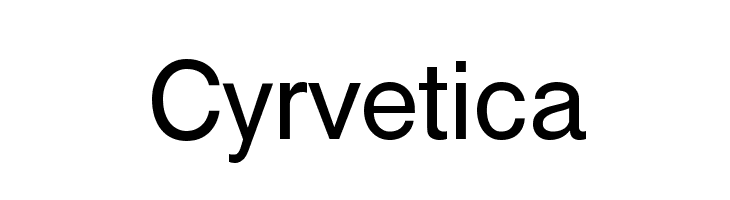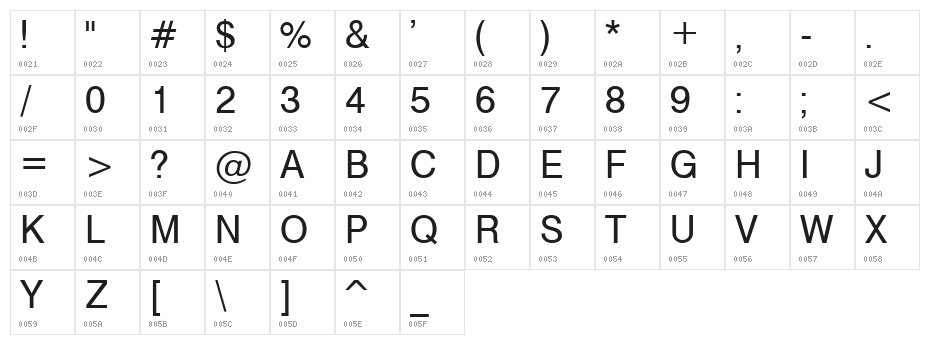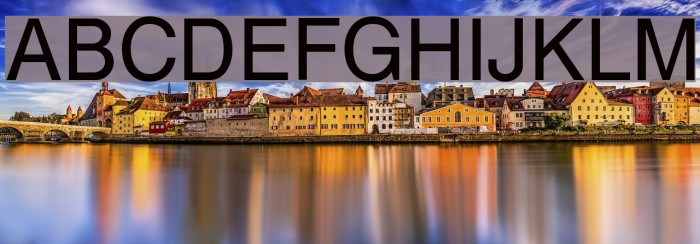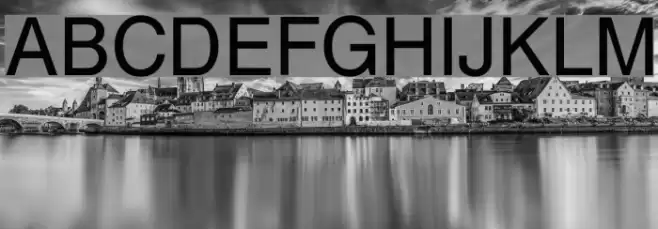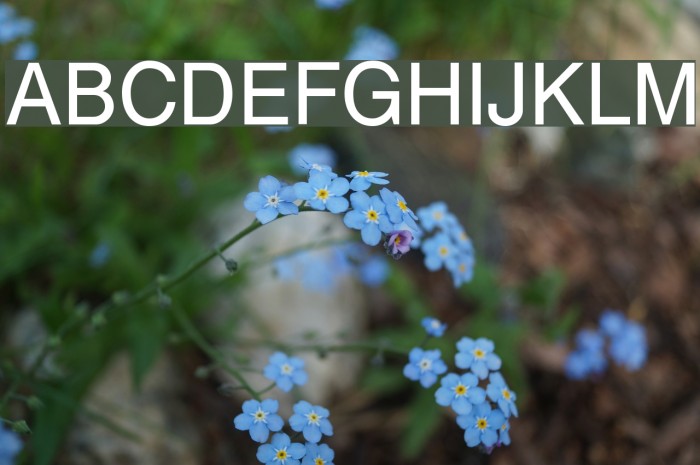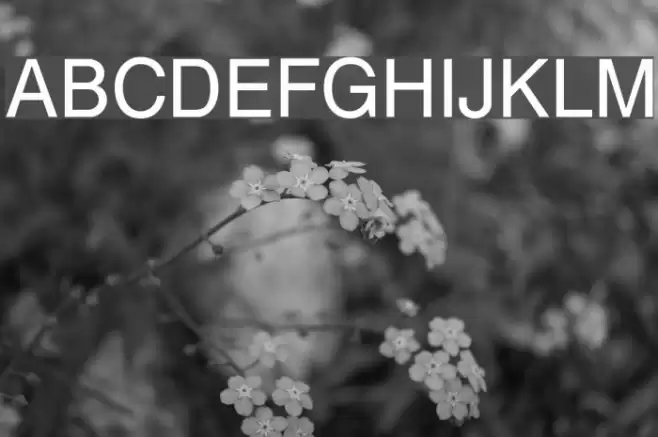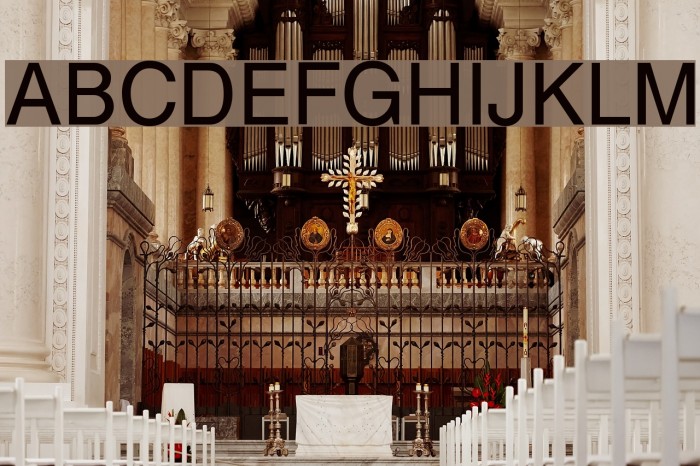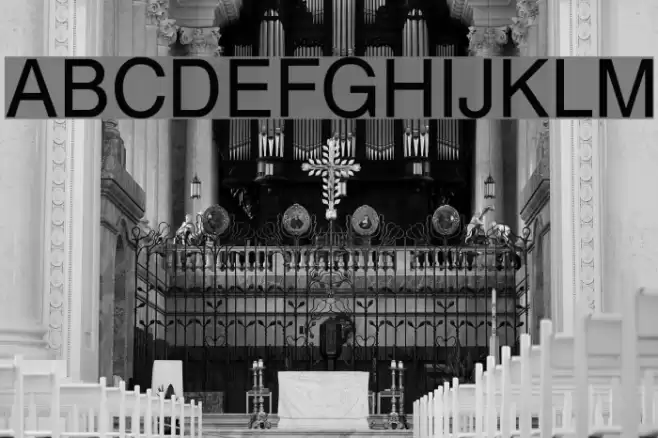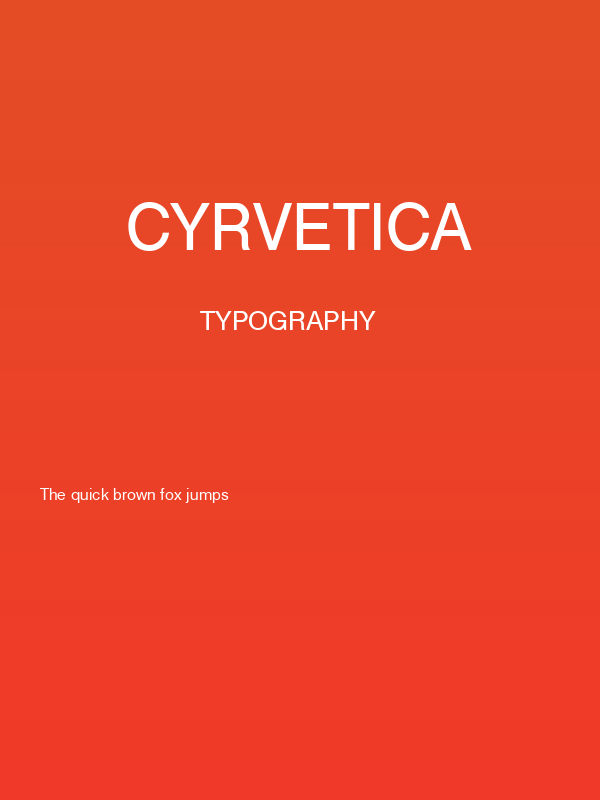
Cyrvetica Font
Cyrvetica Description
This font features a clean and modern sans-serif design, characterized by its simplicity and readability. The characters are well-proportioned with consistent stroke widths, making it suitable for a wide range of applications. The uppercase and lowercase letters maintain a uniform style, with rounded edges that add a touch of softness to the overall appearance. The numerals are clear and distinct, ensuring legibility in both print and digital formats. Special characters are included, offering versatility for various uses. The design is straightforward, emphasizing functionality and clarity.